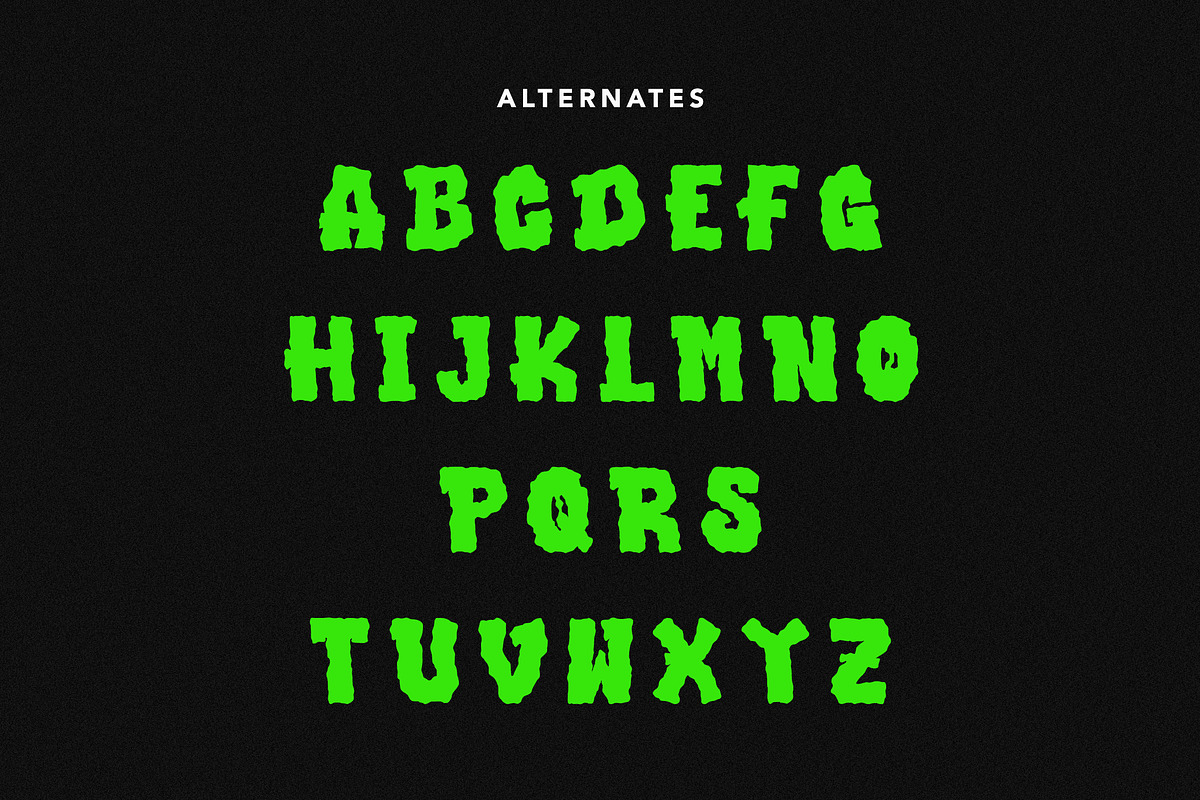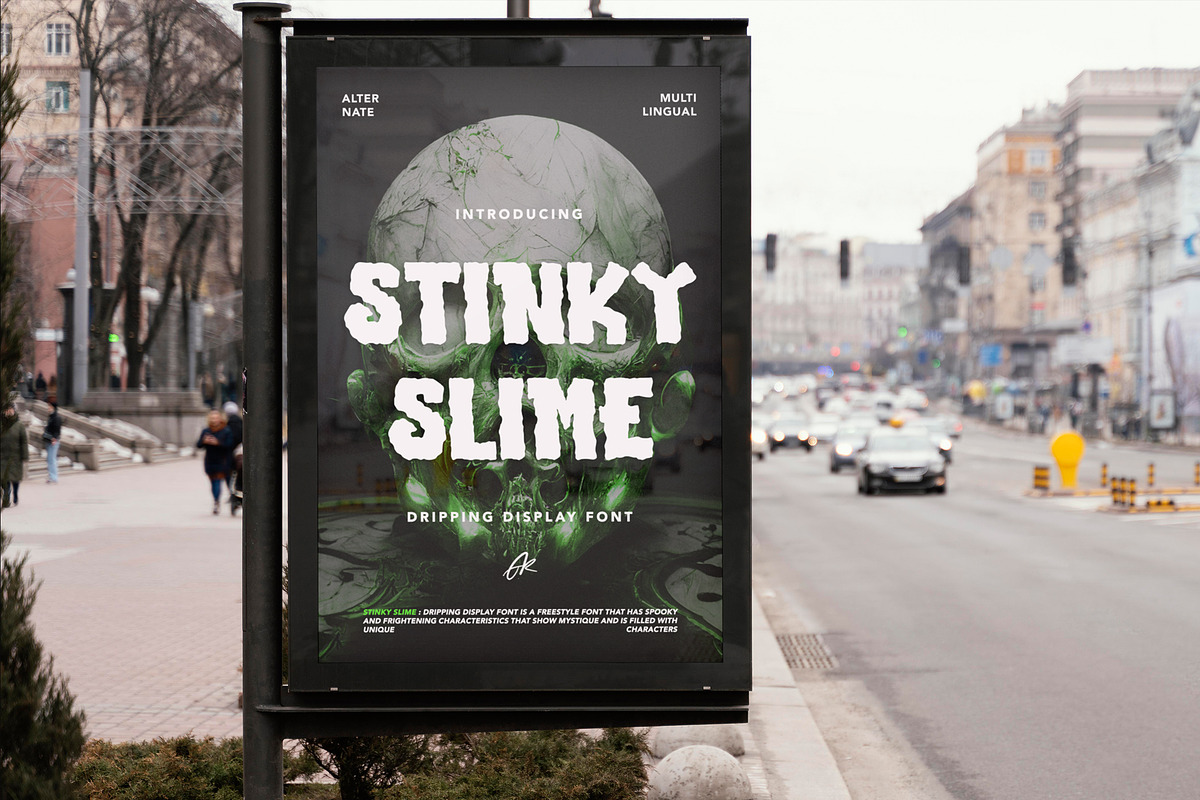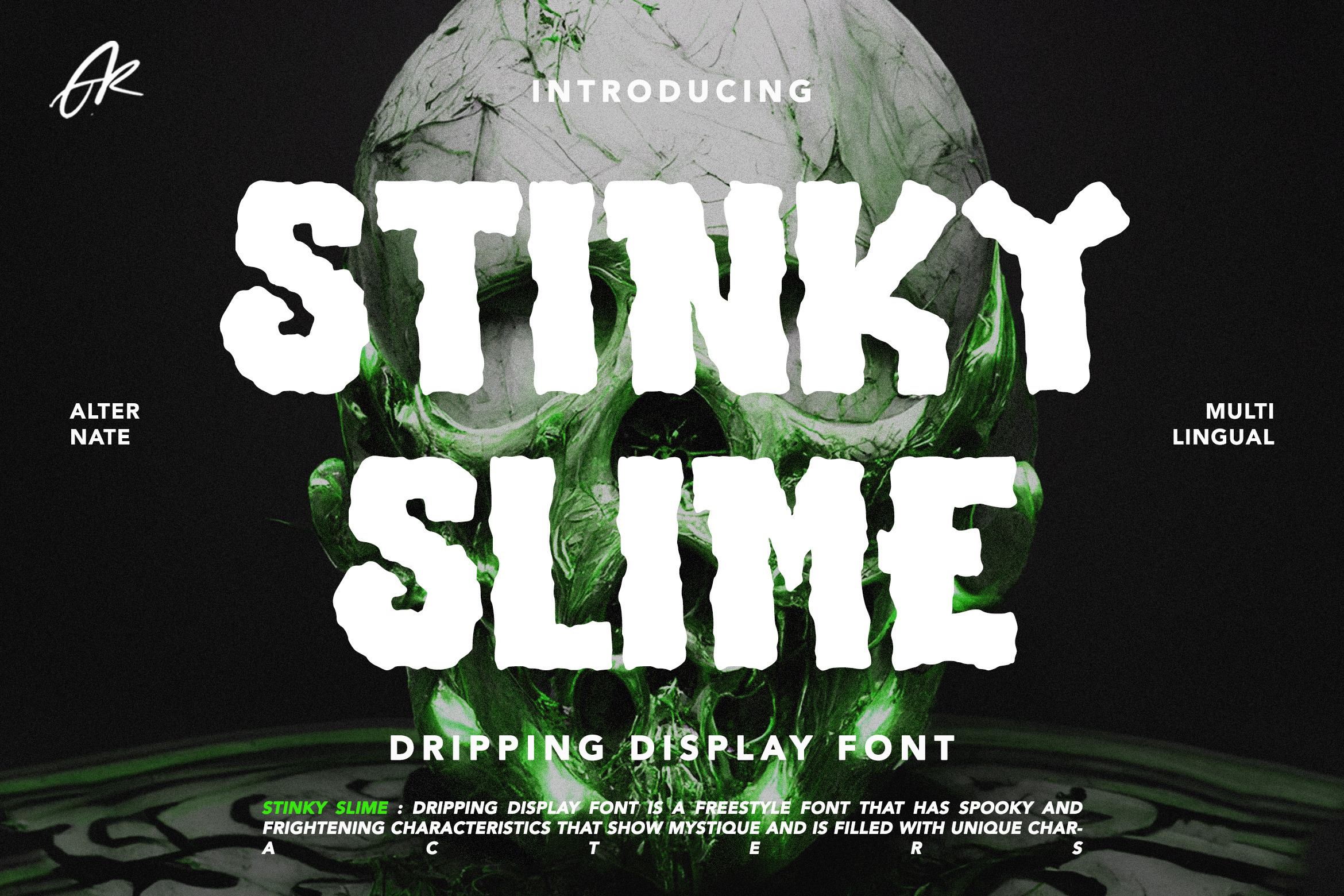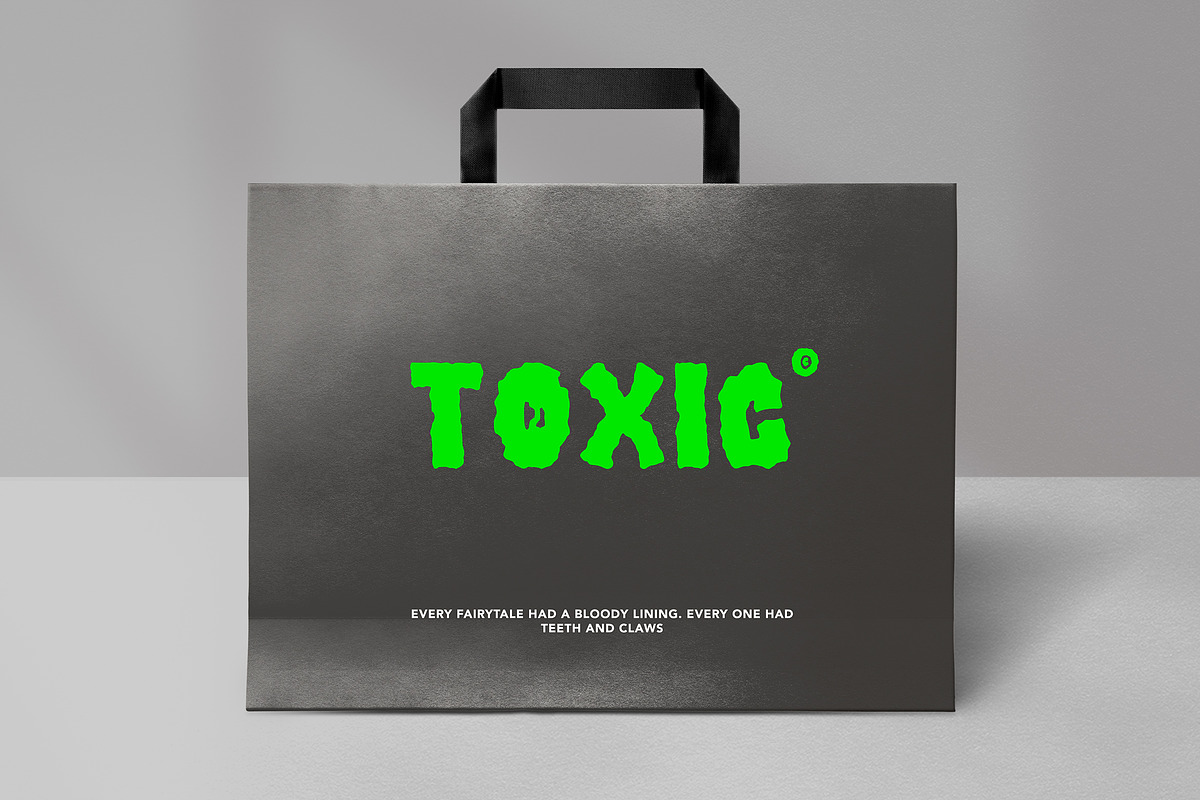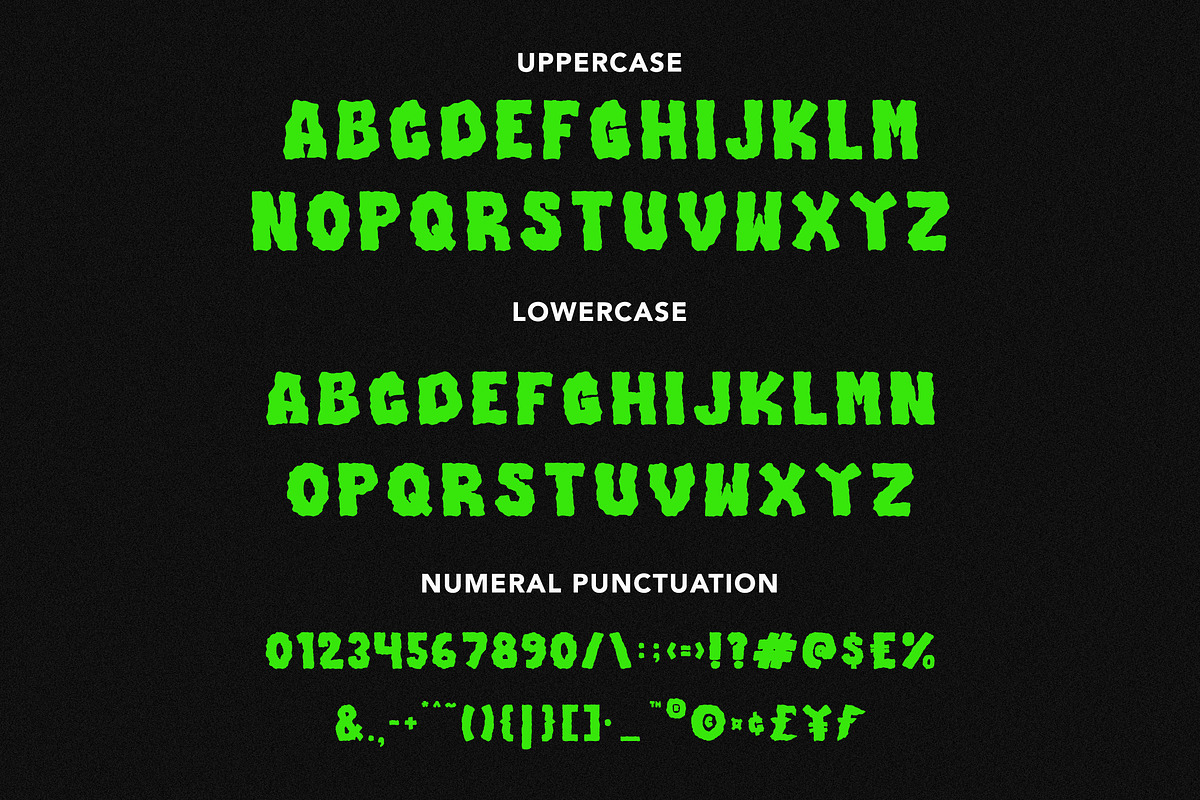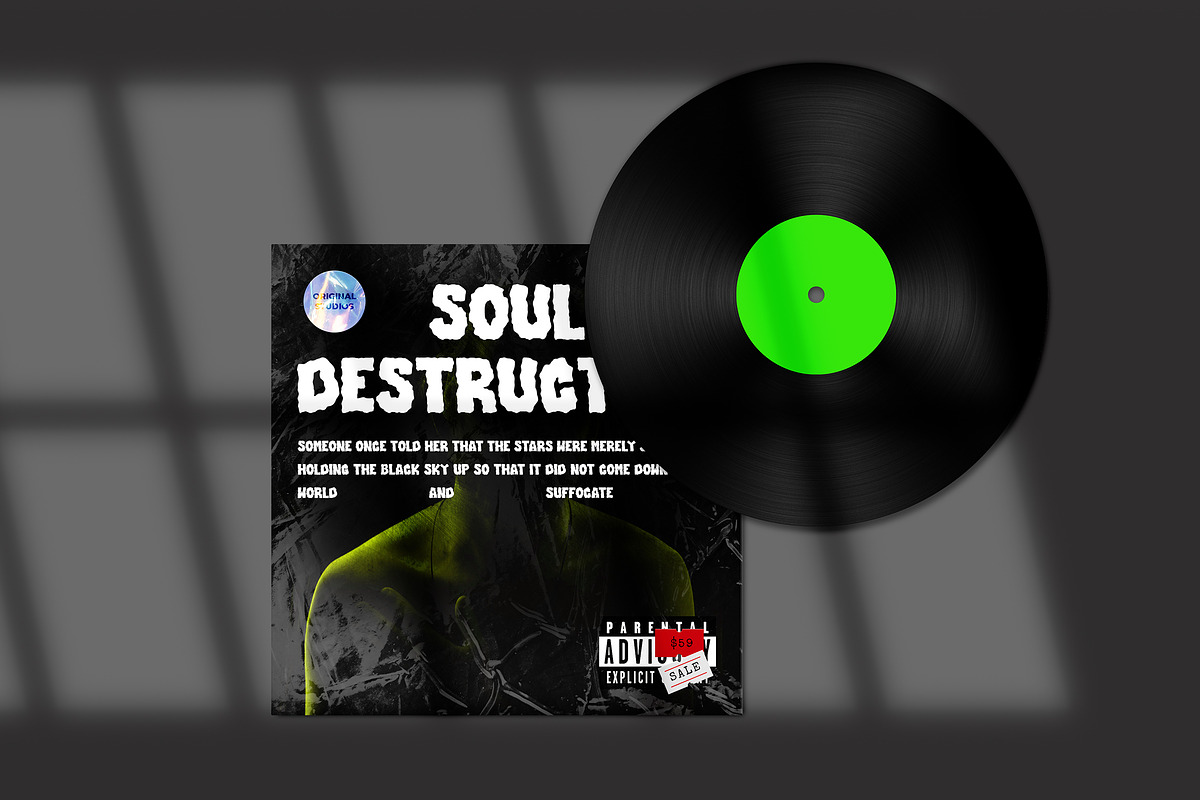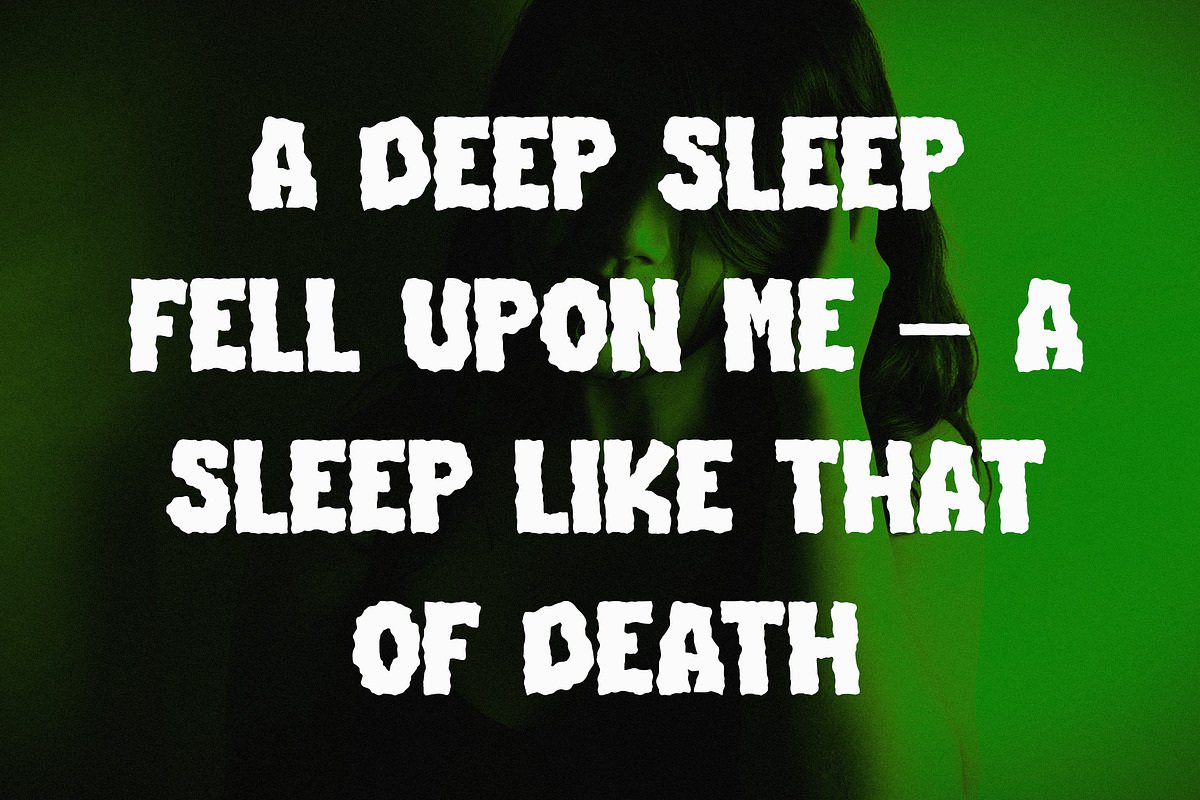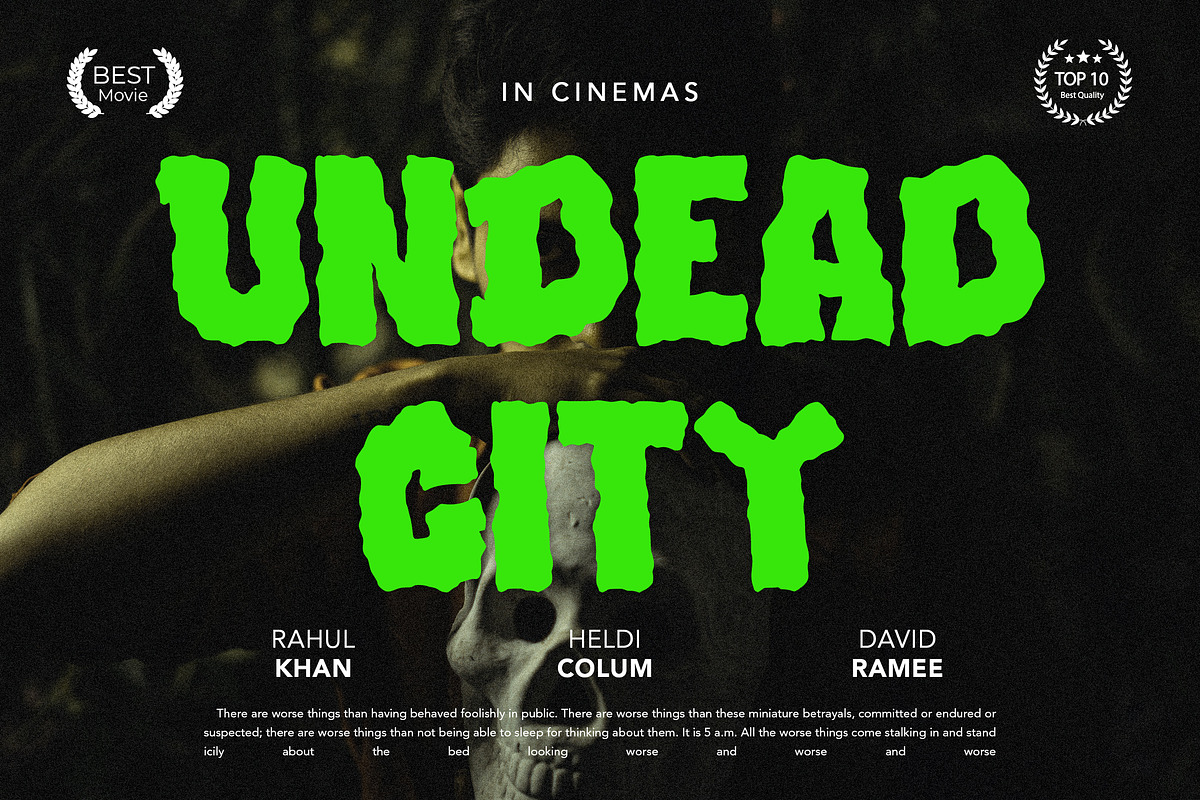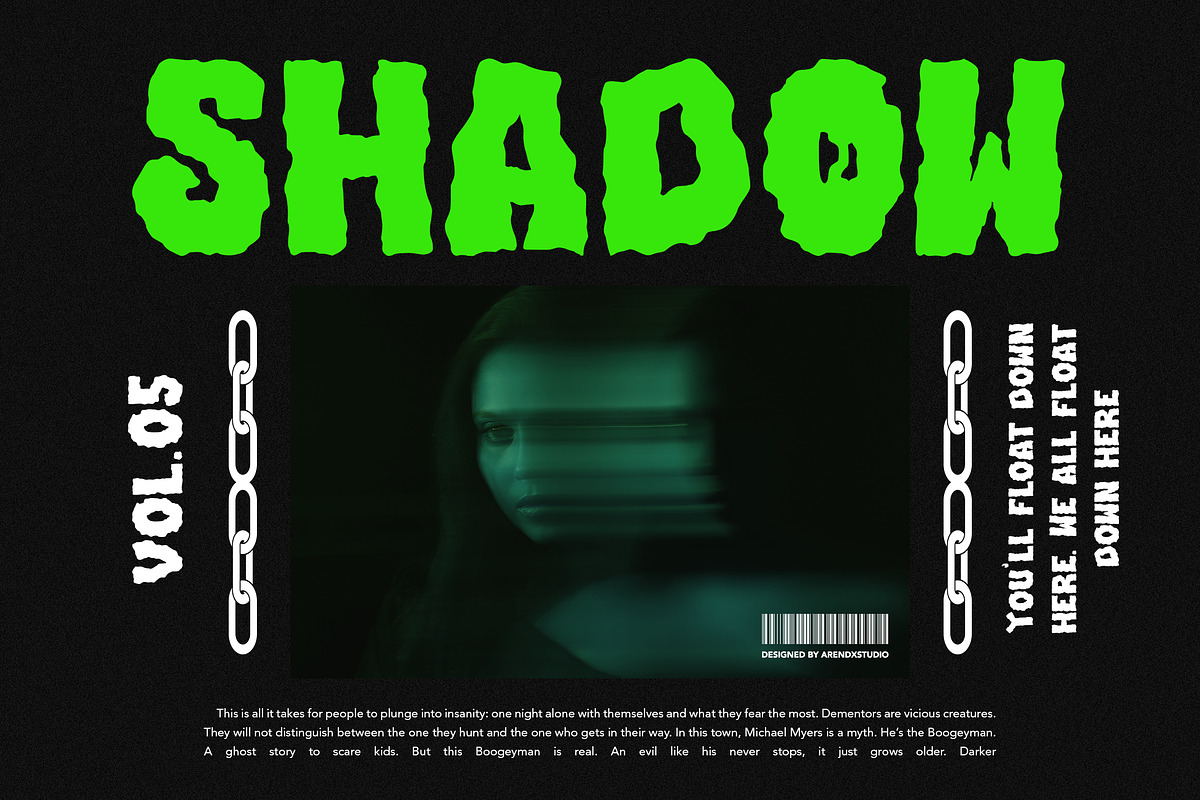
Stinky Slime - Halloween Font
Stinky Slime - Dripping Halloween Font is a display font that is inspired by gothic and horror style because its shape is very unique and is perfect for any project that you will use with this theme.
Stinky Slime with opentype features such stylistic alternates, stylistic sets & ligatures good for logotype, poster, badge, book cover, tshirt design, packaging and any more.